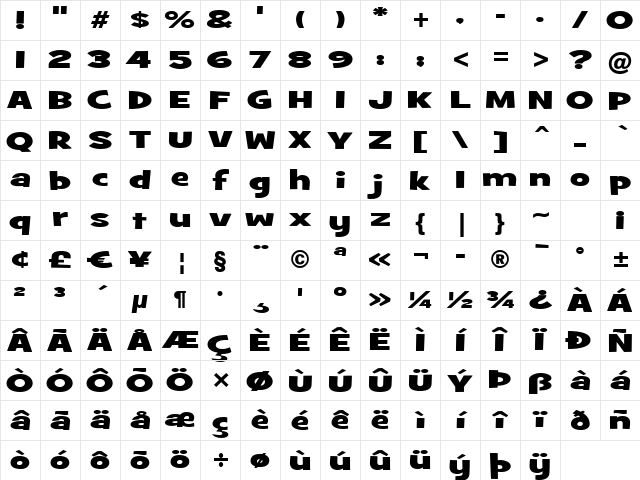
GrilledCheese BTN Wide Blk Regular
Design Context for GrilledCheese BTN Wide Blk
GrilledCheese BTN Wide Blk is a composed and adaptable typeface that performs quietly and consistently across a wide range of design contexts.
Pro Tip: Use GrilledCheese BTN Wide Blk in both headline and body roles to test its range before committing to a single application.